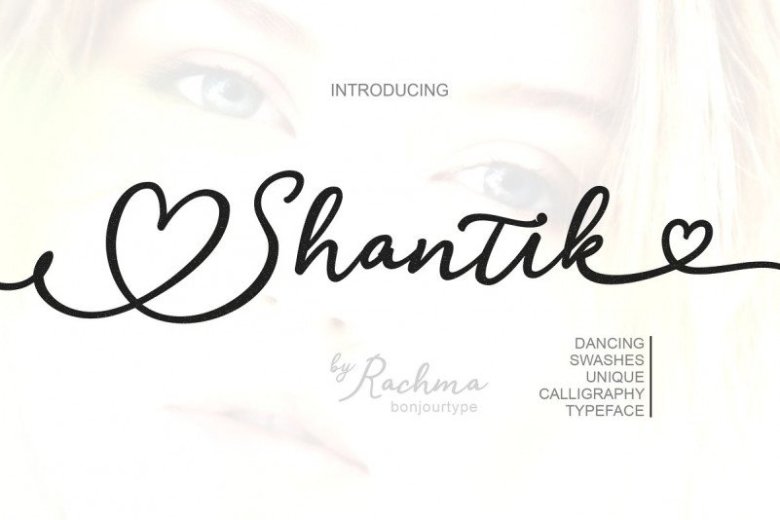
Shantik Script Font
Shantik Font – This is a realistic handlettered script font. Try this new font, I think it combines all these qualities. Simple and clear, looks at ease. It is perfect for signatures or design, where you do not need a strict style ?
Shantik Script Font is Beautiful Word originating from English and translated into Indonesian, Syantik Script is a really beautiful and unique font with beautiful swash fonts.
It is suitable for greeting cards, quotes, invitations, printable, such as posts, signatures, logos, wedding invitations, t-shirts, letterhead, signage, labels, news, posters etc.